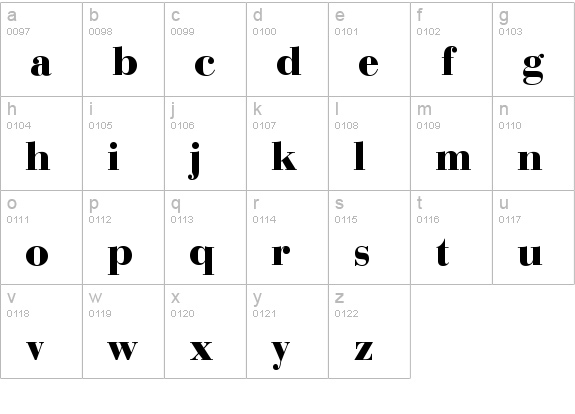
Bauer Bodoni Std 2 Black Font Details
Bauer Bodoni Std 2 Black is a maximum-weight, dramatic variant in the Bauer typeface family \xE2\x80\x94 well suited to maximum-impact headlines, posters, and packaging.
Bauer Bodoni Std 2 Black is a classic and elegant typeface that exudes sophistication and style. With its bold and striking design, this font is perfect for creating eye-catching headlines and titles that demand attention. The sharp serifs and clean lines of Bauer Bodoni Std 2 Black make it a versatile choice for a wide range of design projects, from branding to editorial layouts. What sets Bauer Bodoni Std 2 Black apart is not just its timeless beauty, but also the fact that it is freely available to download at FontsMarket.com. This means that you can easily access this high-quality font for your personal and commercial projects without any cost. Whether you're designing a poster, packaging, or website, Bauer Bodoni Std 2 Black will elevate your work with its bold and commanding presence. Choose this font to make a statement and leave a lasting impression on your audience.